Some fonts speak. Others scream. When it comes to bold visual statements, nothing works harder than great poster fonts. They’re design elements that can define mood, spark curiosity, and pull people in from across the room. In this article, we’re diving into styles that shout, whisper, or dazzle at just the right volume.
- Bold, expressive typography can elevate even a simple layout into a powerful visual statement that captures attention from afar.
- The right typeface for a poster is essential because it sets the tone, reinforces the message, and draws the viewer’s eye in seconds.
- The most effective choices often reflect the theme or emotion of the event, whether it’s loud and energetic or refined and elegant.
The Power of Poster Fonts in Visual Communication
So, what makes a font worthy of your next poster? It needs style, impact, and just the right amount of attitude. Below, you’ll find a collection of cool fonts for a poster that checks all those boxes, and then some. Check them out!
1. Movie 1950
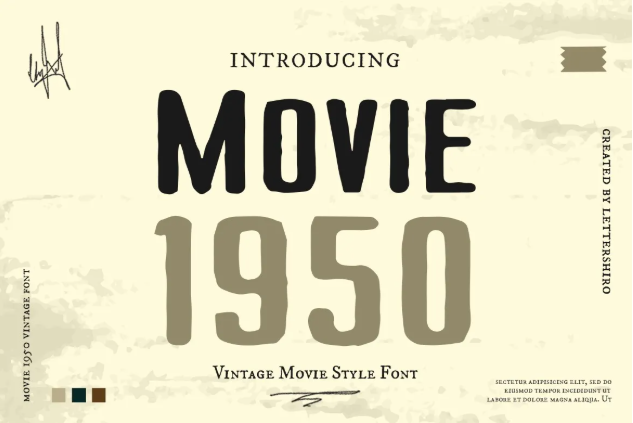
When thinking about posters, the first thing that comes to mind is likely movie posters. And the Movie 1950 offers the perfect, nostalgic vibes of popular movies.
2. Crispy Snack
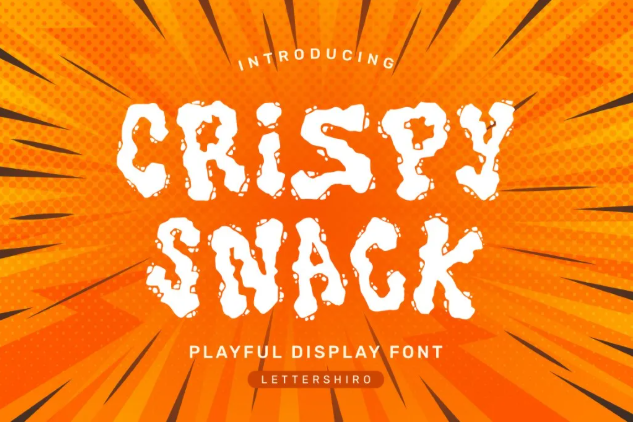
Crispy Snack is a playful font with crumbling ornaments. The letterform itself creates a lively, energetic vibe, perfect for promoting your events.
3. Hunger Flame
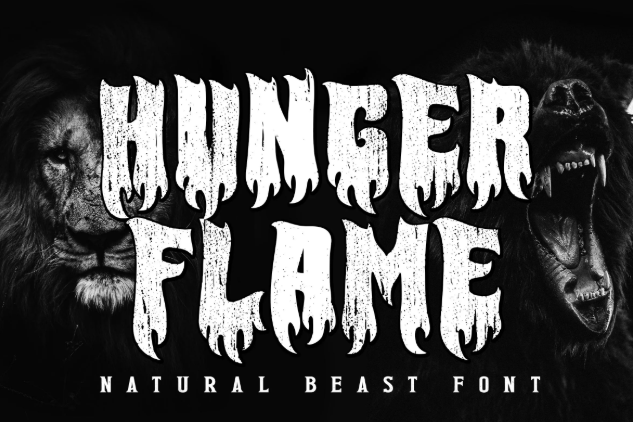
Hunger Flame is a spot-on choice for your underground music concerts. With its bold letters and fiery elements, Hunger Flame creates an automatic head-turner.
4. Brush Heats
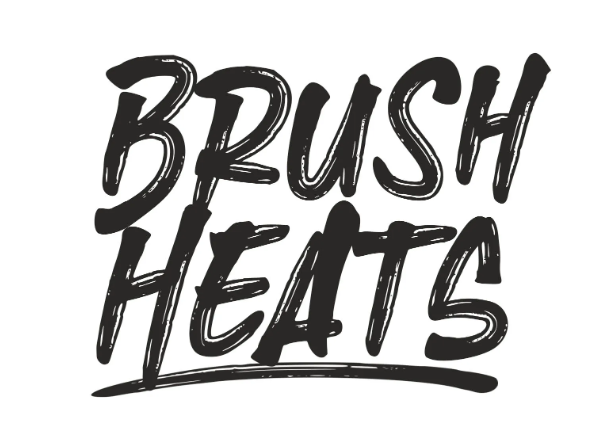
True to its name, Brush Heats displays a dry-brush letter fill. Unlike the other poster fonts, Brush Heats cleverly combines natural writing and comical styles.
5. Me Amanda
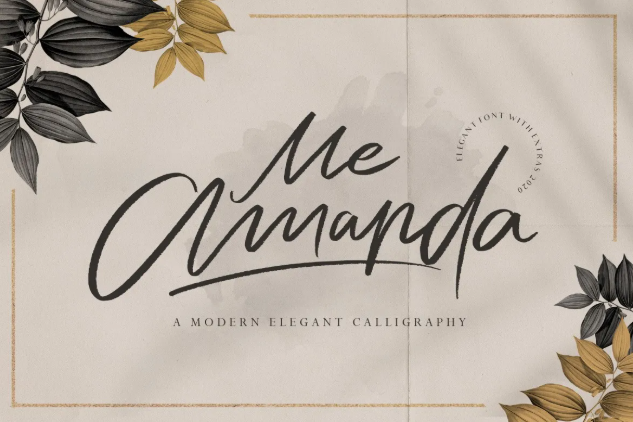
If you’re looking for some elegant poster fonts for your design, Me Amanda should be on your list. Me Amanda’s letterforms instantly elevate your poster to a high-end concept.
6. Modern Deluxe
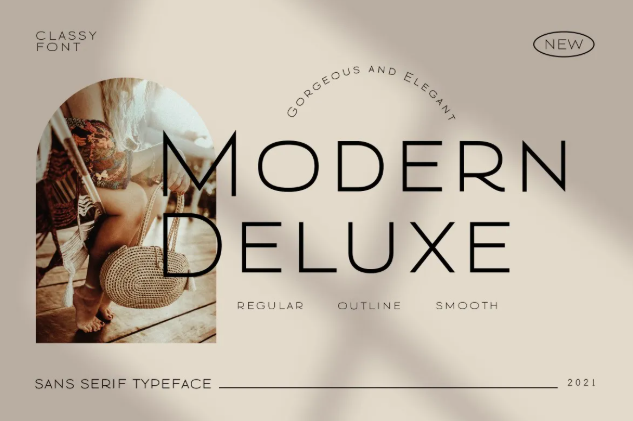
Modern Deluxe is an authoritative sans serif font with all-caps letters for your formal setting posters. Its outline font style allows you to highlight your background pictures.
7. Link Heart
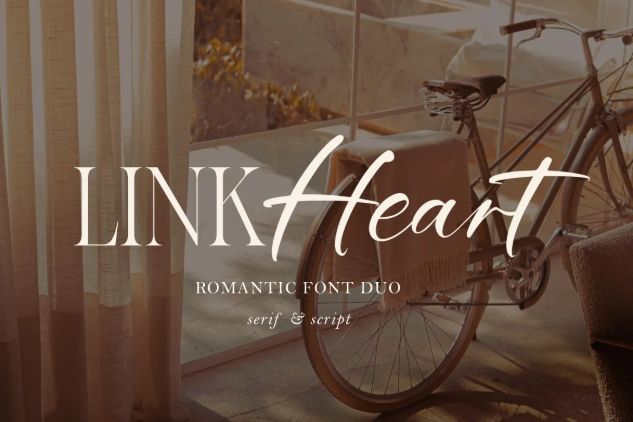
When you’re experiencing difficulties matching fonts, a font duo like Link Heart is your solution. A poster with two matching typefaces is going to be your next best piece.
8. Gloria
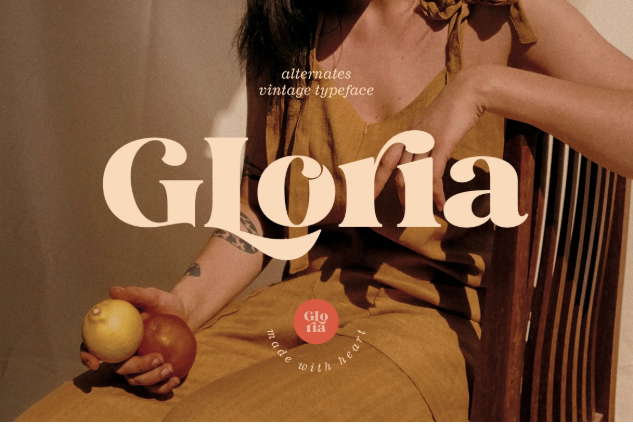
Gloria exhibits a unique floral aesthetic among the best poster fonts lineup. Combining a bold serif font and twirling details, Gloria can instantly beautify your tropical posters.
9. Zamruds
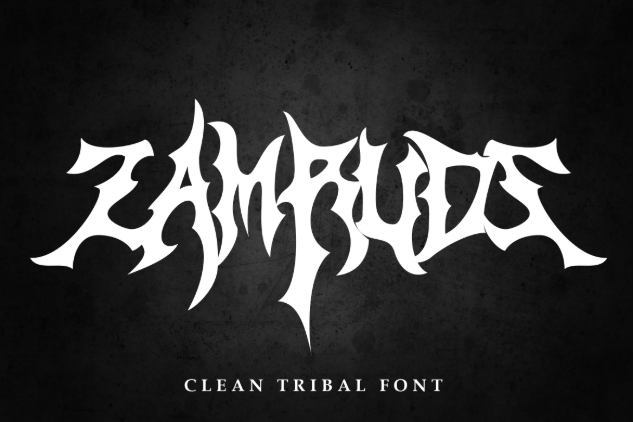
When tribal fonts are your preference, try Zamruds. Zamruds exhibits jagged letterforms with a professional edge, improving the readability of this expressive font.
10. Deluxe Resto
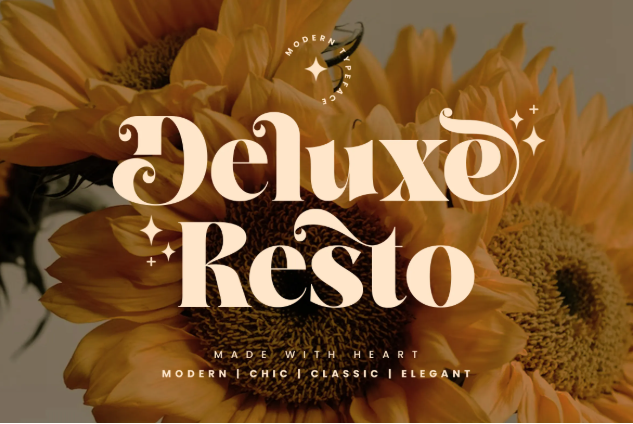
Deluxe Resto helps you express a chic and modern persona in your posters. With its luxurious visuals and flowing accessories, a stunning poster would be the minimum of your creations.
11. Inzomniac
Among the cool fonts for a poster, Inzomniac is your attention magnet. Its bold brush look, combined with a careless and boastful aura, creates a casual and striking poster element.
12. Black Spirit
Black Spirit’s natural boldness and slanted orientation allow you to create a more exciting poster. Its striking appearance naturally grabs attention from concert posters to casual events.
13. Almond
If you’re looking for minimalist yet high-end visuals, you need Almond. It is an elegant sans serif font with a tall, clean-cut shape, allowing your product to shine and sending a message simultaneously.
14. Comic Hunter
For a light-hearted option, a comical font like Comic Hunter is essential. This bright and playful font, combined with bold letters, easily overwhelms your audience with a sparkling, fun mood.
15. Batsand
Batsand is the best font for poster with horror themes. Its pulsing brush look and all-caps letters make Batsand a perfect fit for your dark-themed posters.
16. Blade Stroke
Even at a glance, you can see the rebellious and raw feel from Blade Stroke. Among our poster fonts, Blade Stroke’s versatile letterform allows you to pair it with urban or casual themes.
17. Halva
Back to some professional options, Halva’s rounded visual is all you need. Its proportionate stature and wider kerning allow Halva to shine across your business posters.
18. Gotten Say
Lastly, the stylish Gotten Say. Gotten Say is a groovy marker font with a handwritten style and vintage influence. Its exaggerated flairs, occasional connected letters, and lively movements can elevate your poster’s visual appeal.
Unlocking Bold Creativity Through Poster Fonts
Designing a poster is like setting the stage for a story. The font you pick plays a leading role in how that story feels. The fonts you choose help communicate tone, emotion, and intent in a single glance. Don’t underestimate their power. Experiment, combine, and let your type speak louder than words ever could.Whether you’re designing for a rock gig or a formal seminar, the right font makes all the difference. At LetterSiro, we craft typefaces that hit every note, from loud and playful to sharp and sophisticated. If you loved these picks, you’ll feel right at home exploring our other unique font collection.